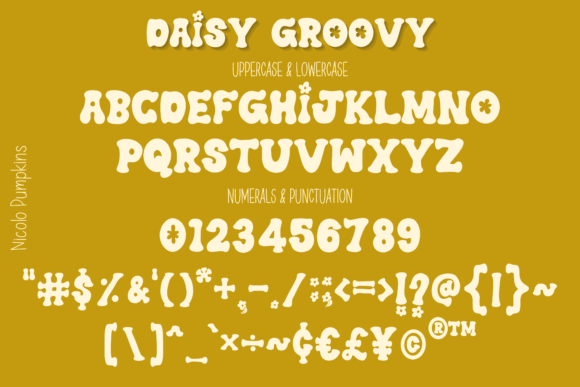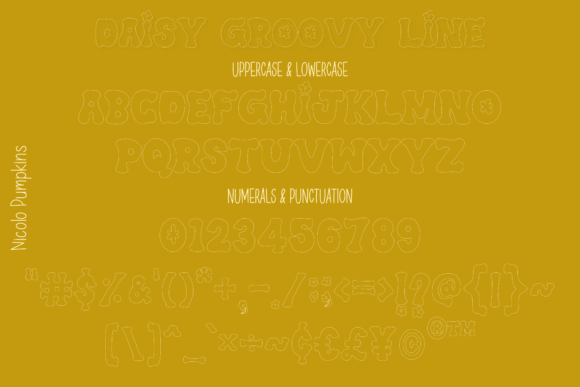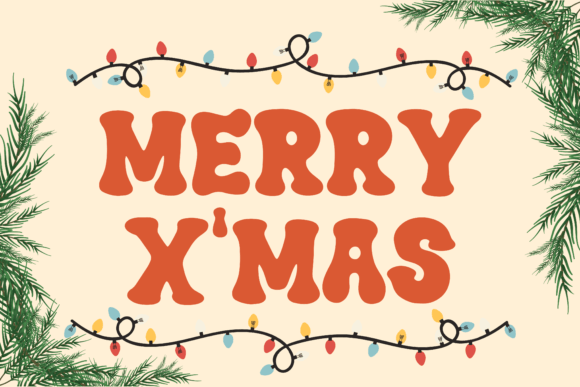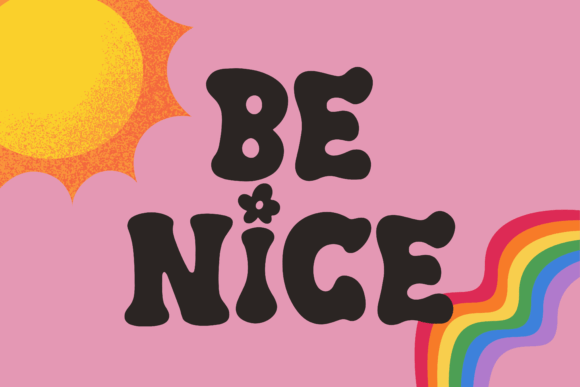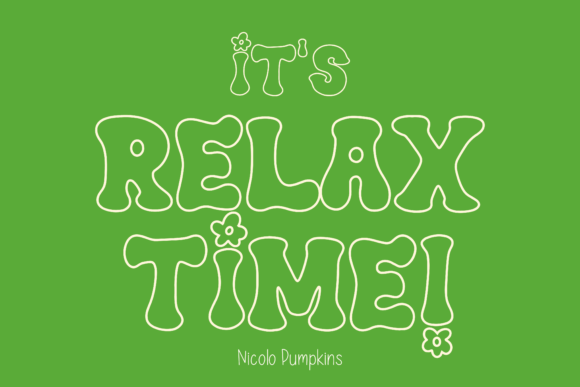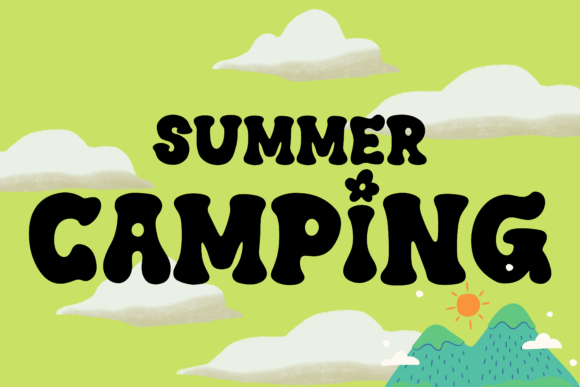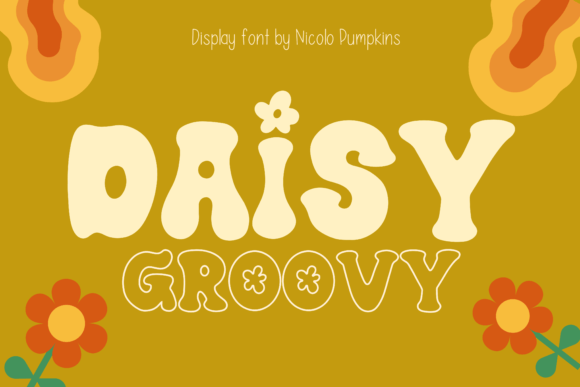
Daisy Groovy Font: The Ultimate Retro Display Font for Creative Projects
Are you a designer or crafter looking for a unique and playful font to add a touch of personality to your projects? Look no further than the Daisy Groovy Font! This adorable, groovy, and retro display font is perfect for creating eye-catching designs for T-shirts, tote bags, hats, stickers, wedding invitations, logos, cards, quotes, and more.
What Makes Daisy Groovy Font So Special?
Daisy Groovy Font is a one-of-a-kind typeface that combines a vintage feel with a modern twist. Its cute and playful design makes it perfect for projects that require a fun and carefree vibe. Whether you’re creating a logo, a social media graphic, or a craft project, this font is sure to add a touch of personality and whimsy.
Features of Daisy Groovy Font
- Cute and Playful Design: The Daisy Groovy Font features a unique and adorable design that’s perfect for creating fun and eye-catching projects.
- Retro and Groovy Vibe: This font combines a vintage feel with a modern twist, making it perfect for projects that require a retro or groovy vibe.
- High-Quality Design: The font is designed with high-quality and clear lines, making it perfect for use on a variety of projects, from small stickers to large billboards.
- Versatile: This font can be used for a wide range of projects, from T-shirts and tote bags to wedding invitations and logos.
The Daisy Groovy Font is perfect for designers and crafters who want to add a touch of personality to their projects. Whether you’re creating a logo, a social media graphic, or a craft project, this font is sure to make your design stand out. Here are just a few ways you can use the Daisy Groovy Font:
- T-Shirts and Apparel: Add a fun and playful touch to your T-shirts and apparel with the Daisy Groovy Font.
- Tote Bags and Accessories: Create eye-catching tote bags, stickers, and other accessories with this adorable font.
- Wedding Invitations and Stationery: Add a touch of whimsy and romance to your wedding invitations and stationery with the Daisy Groovy Font.
- Logos and Branding: Use this font to create a unique and memorable logo for your business or brand.
- Craft Projects: Add a fun and playful touch to your craft projects, such as scrapbooking, card making, and more.
Why Choose Daisy Groovy Font?
There are many fonts to choose from, but the Daisy Groovy Font stands out from the rest. Here are just a few reasons why:
- Unique Design: The Daisy Groovy Font features a unique and adorable design that’s sure to make your projects stand out.
- High-Quality: This font is designed with high-quality and clear lines, making it perfect for use on a variety of projects.
The Daisy Groovy Font is a must-have for designers and crafters who want to add a touch of personality to their projects. With its cute and playful design, retro and groovy vibe, and high-quality lines, this font is perfect for a wide range of projects. Whether you’re creating a logo, a social media graphic, or a craft project, the Daisy Groovy Font is sure to make your design stand out. So why wait? Add the Daisy Groovy Font to your projects today and see the amazing results for yourself!